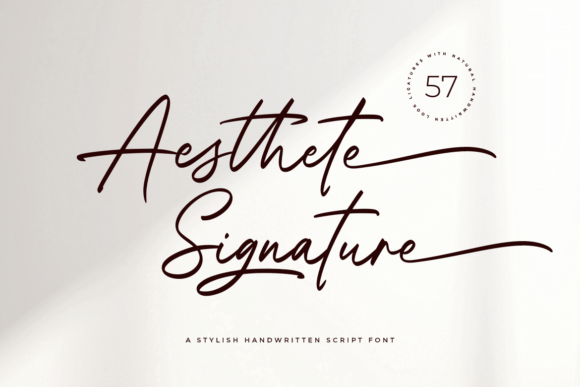
Aesthete Signature Font: Elevate Your Designs with Elegance and Style
In the realm of typography, a well-crafted font can make all the difference in elevating your designs from ordinary to extraordinary. Introducing Aesthete Signature, a stunning handwritten font that embodies elegance and style, perfect for those seeking to add a touch of sophistication to their projects. With its 57 perfectly integrated ligatures, this font offers a natural look that is sure to captivate your audience.
The Essence of Aesthete Signature
Aesthete Signature is more than just a font β it’s an experience. Its elegant, cursive strokes exude refinement and poise, making it an ideal choice for a wide range of design endeavors. Whether you’re creating wedding-themed creations, designing dazzling wedding invitations, or crafting promotional materials, this font is sure to leave a lasting impression.
Key Features of Aesthete Signature
- 57 Perfectly Integrated Ligatures: Aesthete Signature boasts an impressive array of ligatures, carefully crafted to provide a natural look that flows seamlessly.
- Alternative Options: With a variety of alternative options available, you can enhance your designs and add a touch of personality to your projects.
- Multilingual Support: Aesthete Signature offers multilingual support, ensuring that its global appeal knows no language boundaries.
- PUA Encoded: As a PUA encoded font, you can effortlessly access all delightful glyphs and swashes, making it easy to incorporate into your designs.
Versatility at Its Finest
Aesthete Signature is a versatile font that lends itself to a wide range of design applications. Its elegant, handwritten style makes it perfect for:
- Wedding-Themed Creations: Add a touch of romance and sophistication to your wedding designs, from invitations to ceremony programs.
- Valentineβs Day: Create stunning Valentine’s Day designs that exude love and elegance.
- Promotional Materials: Elevate your brand with promotional materials that showcase your business in a stylish and refined light.
- Branding Initiatives: Establish a strong brand identity with Aesthete Signature’s elegant, cursive strokes.
- Business Cards: Make a lasting impression with business cards that feature a sophisticated, elegant design.
- Inspirational Quotes: Add a touch of elegance to your inspirational quotes, making them perfect for sharing on social media or displaying in a stylish setting.
Why Choose Aesthete Signature?
With so many fonts available, why choose Aesthete Signature? Here are just a few reasons why this font stands out from the rest:
- Elegance and Style: Aesthete Signature embodies elegance and style, making it perfect for those seeking to add a touch of sophistication to their designs.
- Versatility: With its wide range of applications, Aesthete Signature is a versatile font that can be used in various design endeavors.
- Easy to Use: As a PUA encoded font, Aesthete Signature is easy to use, allowing you to access all delightful glyphs and swashes with ease.
Tips for Using Aesthete Signature
To get the most out of Aesthete Signature, here are a few tips to keep in mind:
- Experiment with Ligatures: Take advantage of Aesthete Signature’s 57 perfectly integrated ligatures to add a natural look to your designs.
- Play with Alternative Options: Don’t be afraid to try out different alternative options to add a touch of personality to your designs.
- Pair with Other Fonts: Aesthete Signature pairs well with other fonts, so feel free to experiment with different combinations to find the perfect look for your design.
In conclusion, Aesthete Signature is a stunning handwritten font that embodies elegance and style, perfect for those seeking to add a touch of sophistication to their designs. With its 57 perfectly integrated ligatures, alternative options, and multilingual support, this font is sure to captivate your audience. Whether you’re creating wedding-themed creations, designing promotional materials, or crafting inspirational quotes, Aesthete Signature is the perfect choice.